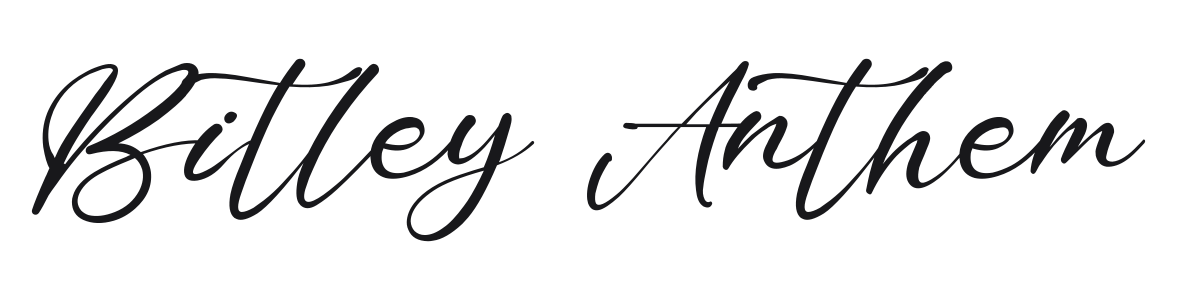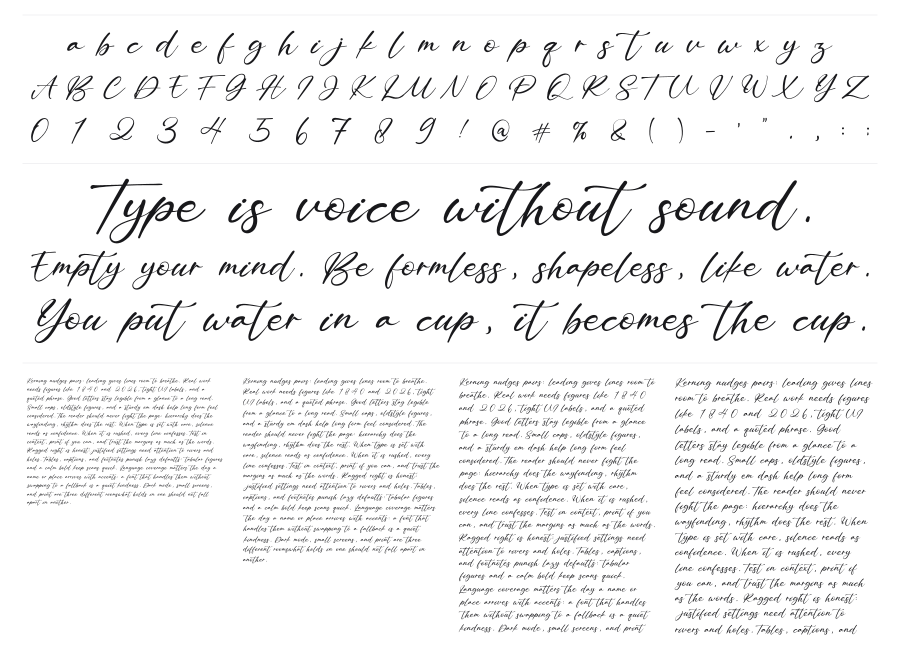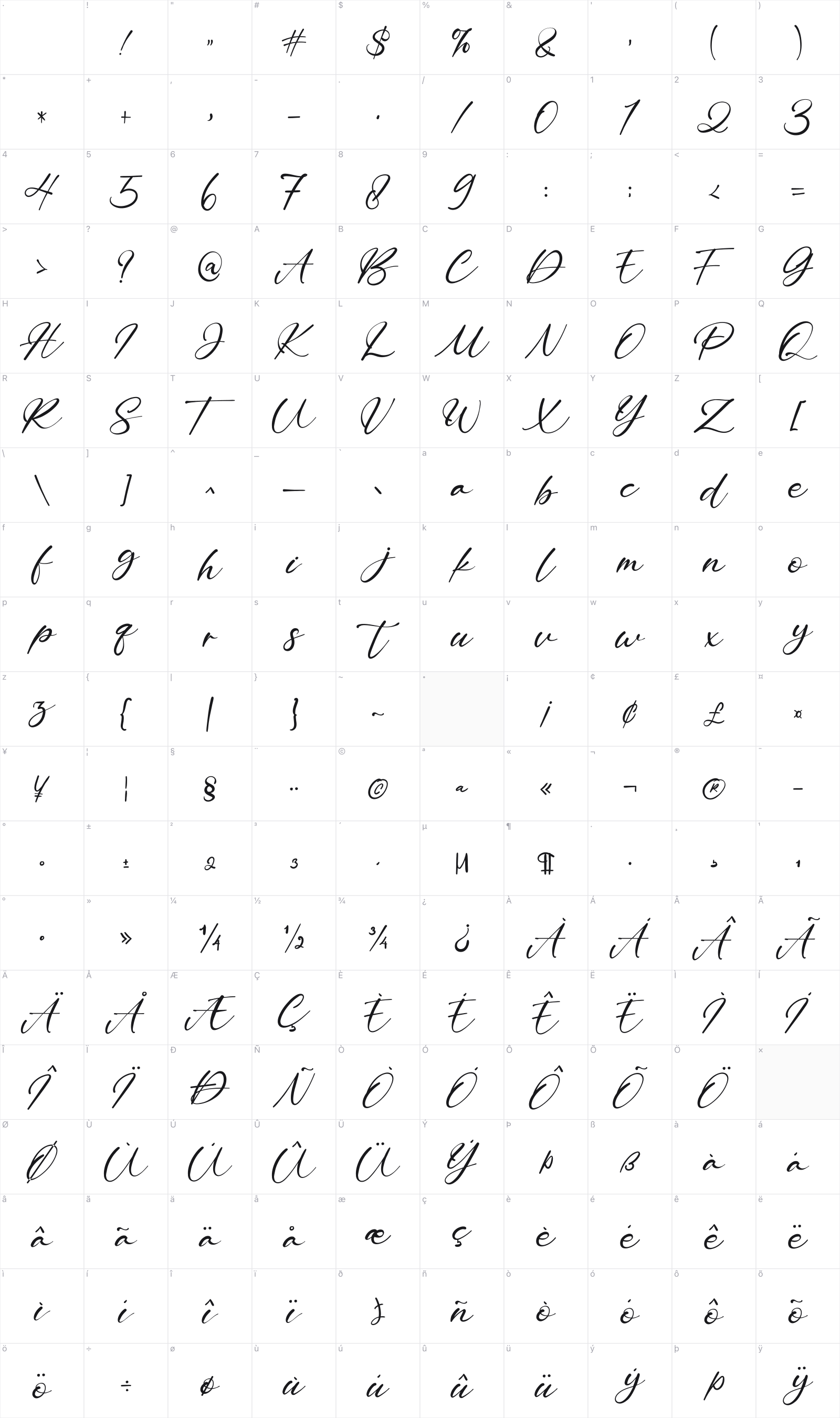
Bitley Anthem
Bitley Anthem is a flowing casual script with lush looping ascenders and expressive stroke contrast. The natural pen-drawn quality gives it an authentic handwritten feel, somewhere between modern calligraphy and everyday cursive. It works well for wedding stationery, brand identity, and any project that needs warmth without feeling stiff.